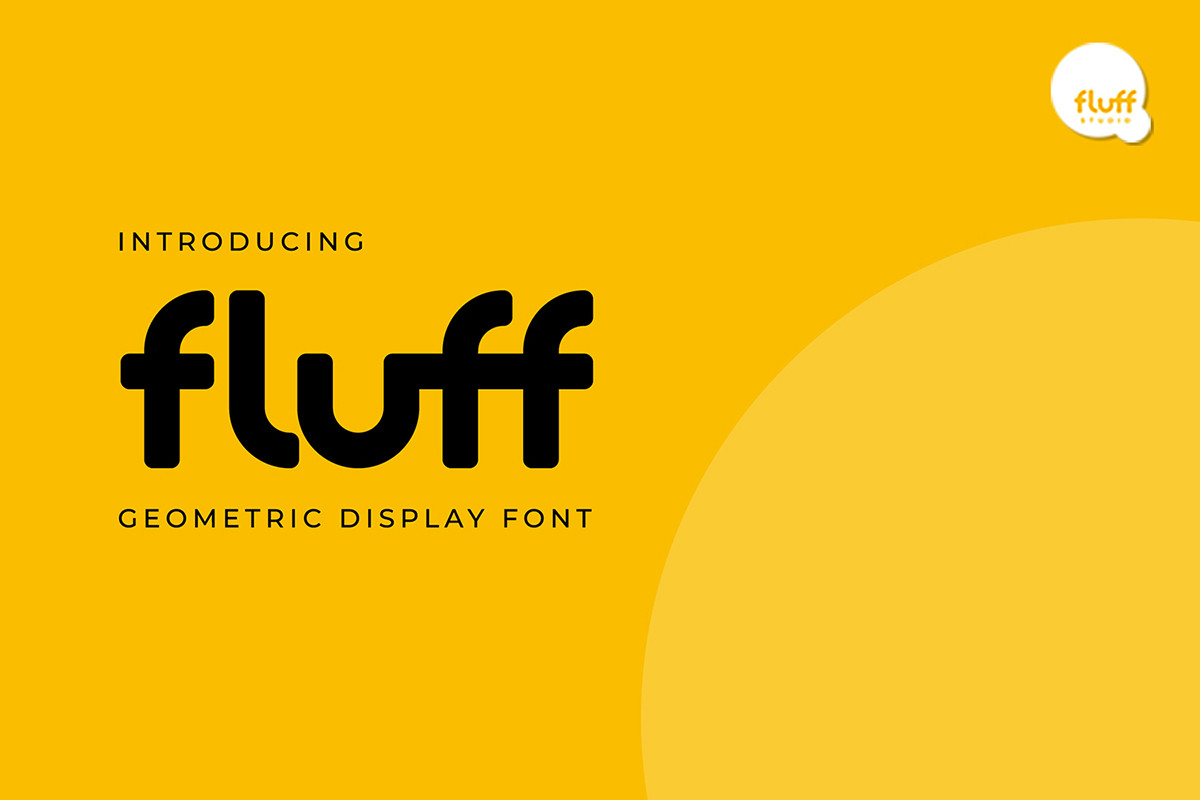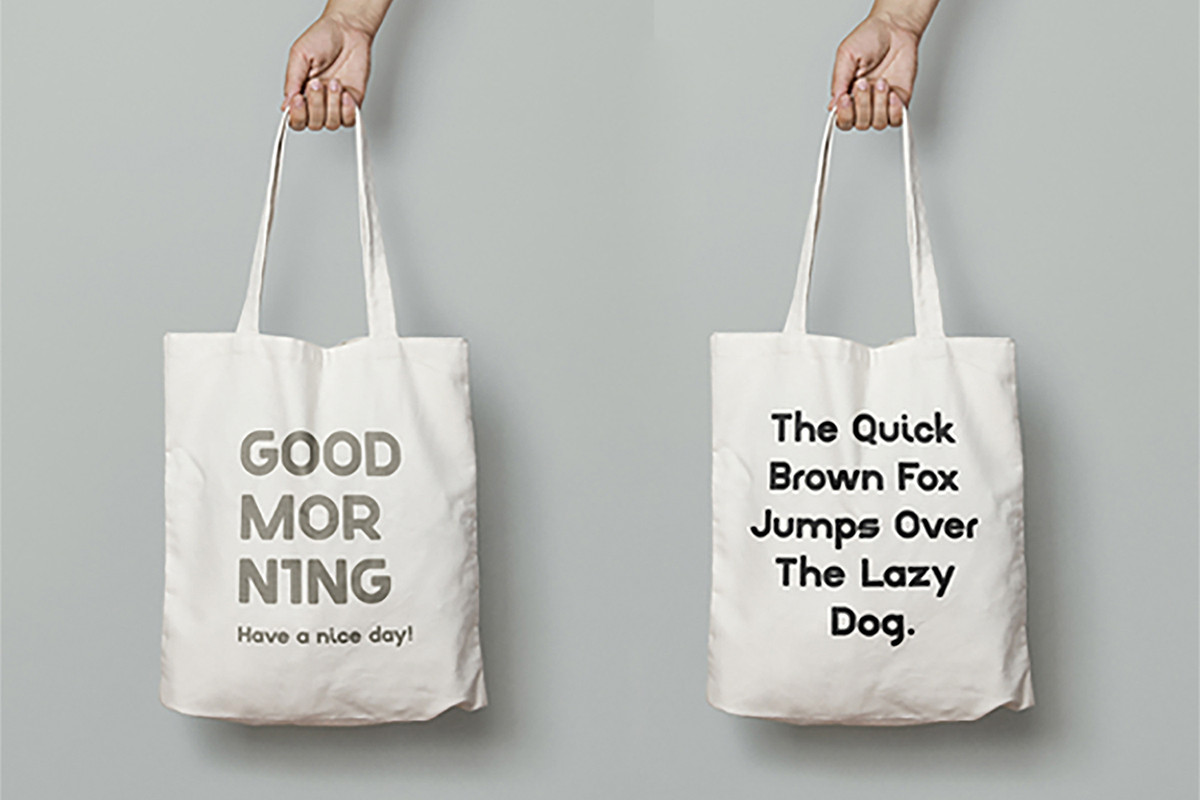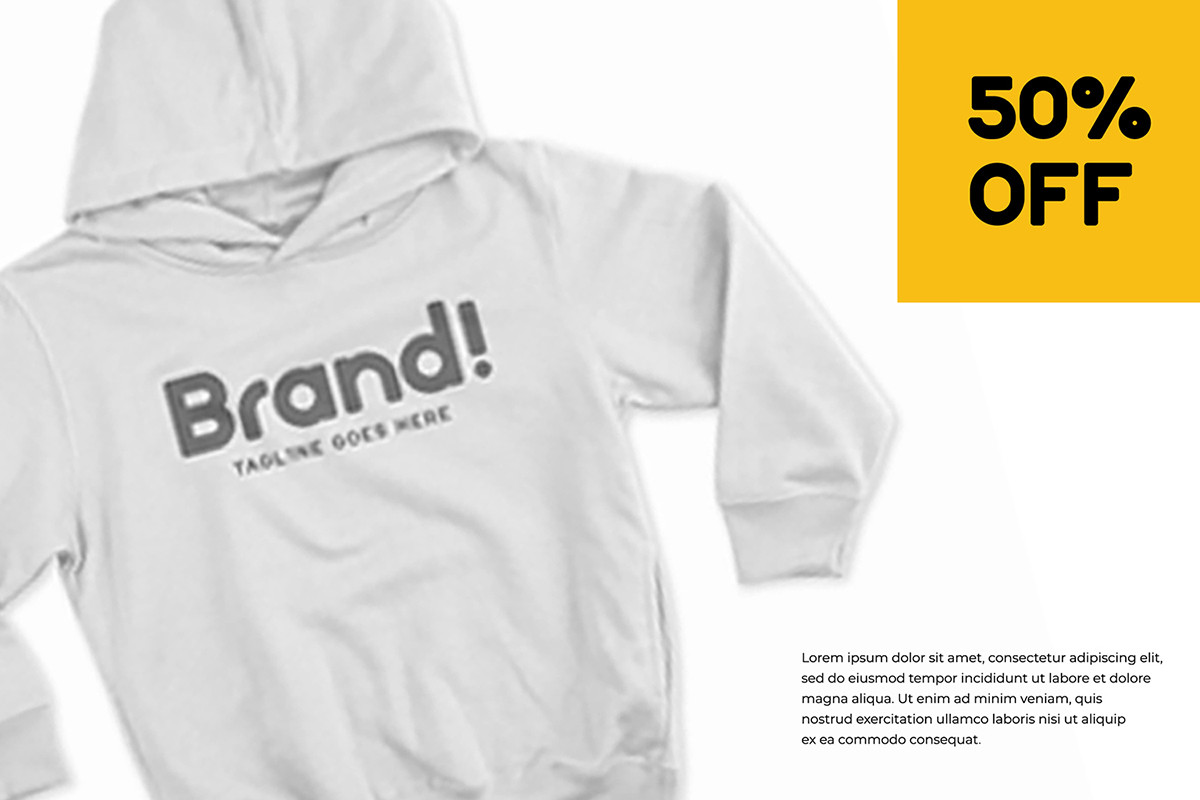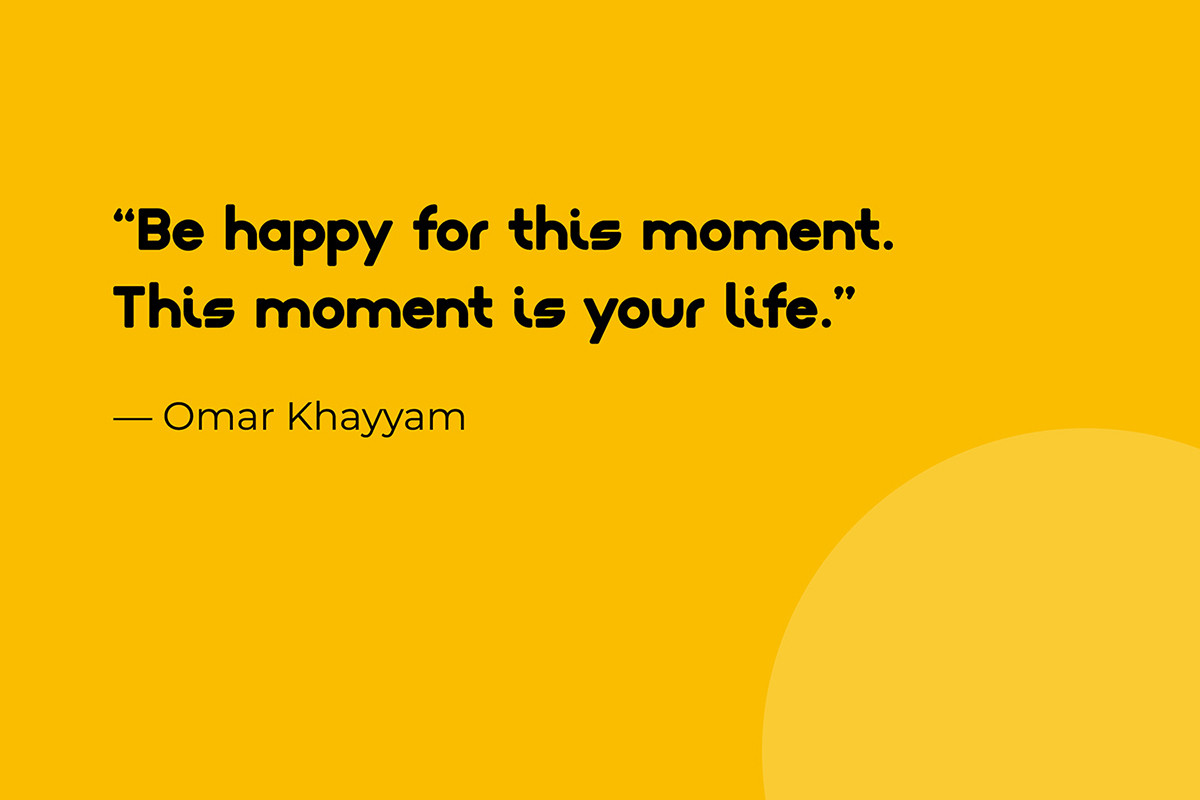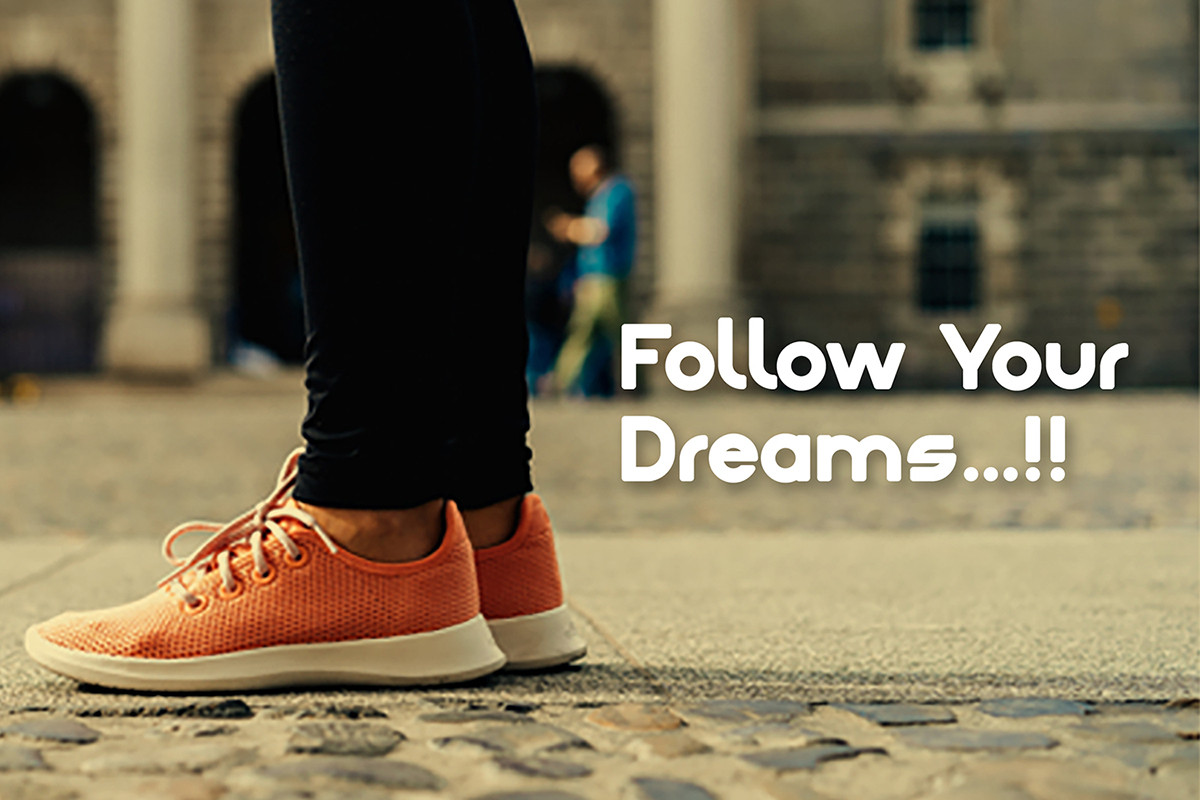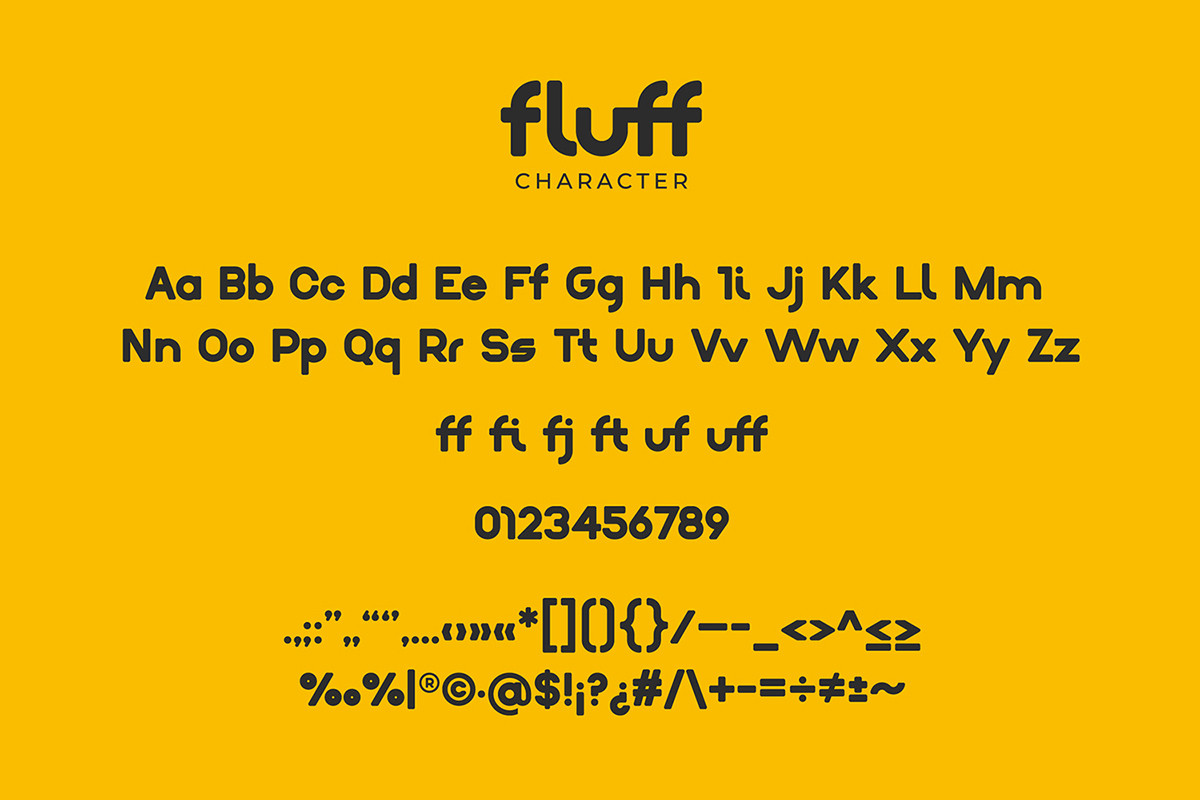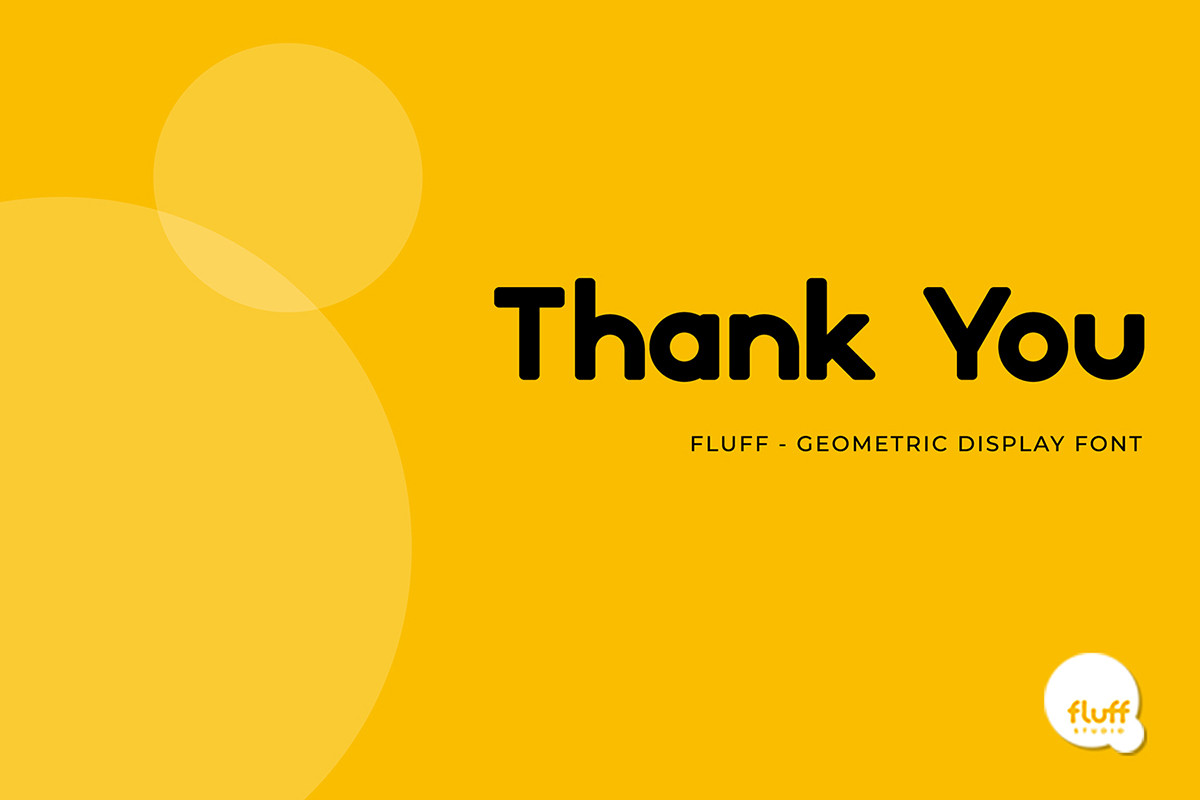
Fluff - Geometric Display Font
Geometric - Sans Serif - Display Typeface, With Cute and Playful Touch
Perfect for Logotype, brand logo, apparel design, clothing, fashion, creative industry, signature, headline/title on poster, brochure, packaging, wedding invitation, quotes, magazine, social media etc.